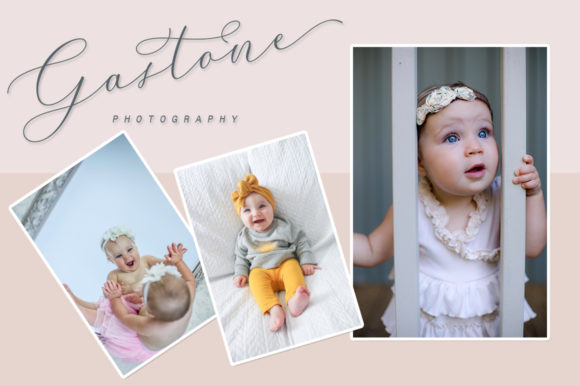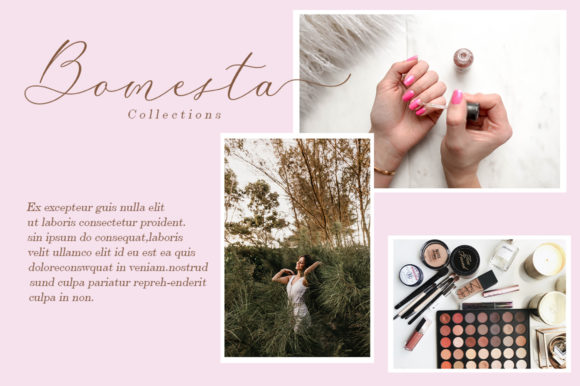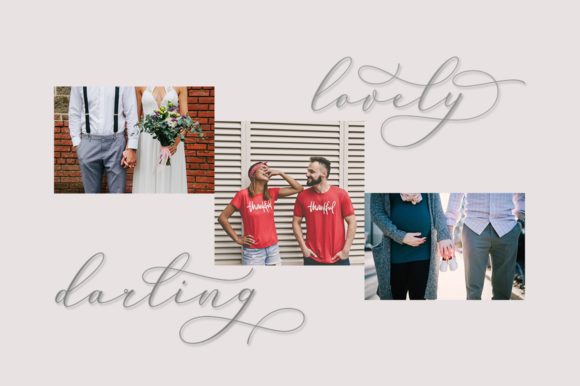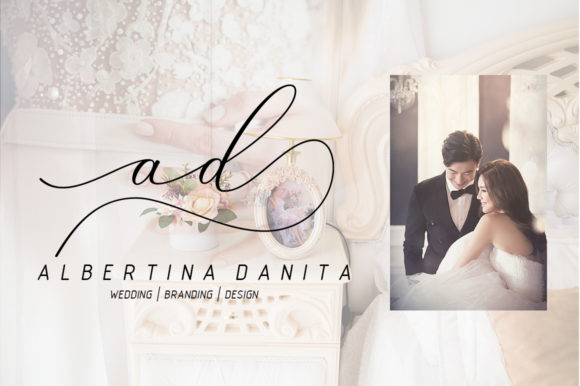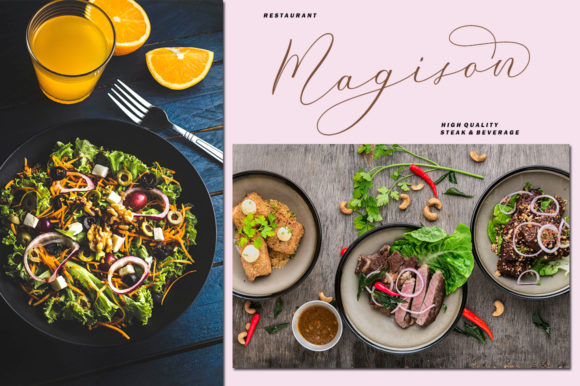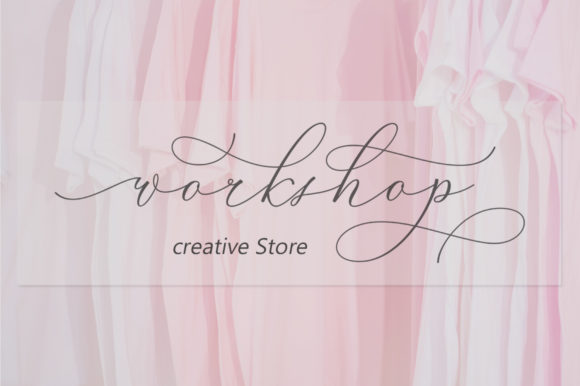
The Perfect Blend of Whimsy and Charm: Alove Hoolena Font
There’s something special about finding that perfect font that captures the essence of your creative vision. For designers, it’s like stumbling upon a hidden treasure that brings their ideas to life. And for those who have been searching for just the right touch of whimsy and charm, Alove Hoolena Font is here to delight.
Alove Hoolena Font is a beautiful, hand-lettered typeface that exudes a carefree, dynamic energy. Its dancing baseline adds a playful touch to any design, making it perfect for logos, branding, greeting cards, quotes, wedding stationery, and more. Whether you’re a seasoned designer or just starting out, Alove Hoolena Font is an invaluable addition to your toolkit, offering endless possibilities for creative expression.
Alove Hoolena Font Key Features
- Unique Characteristics: Elegant, cursive script with a touch of elegance and sophistication
Alove Hoolena Font Review
Overall, I found the Alove Hoolena Font to be a unique and visually appealing choice. ✨ Its whimsical feel and subtle curves make it perfect for designers looking to add a touch of elegance to their projects.
- Highly customizable: The Alove Hoolena Font offers a wide range of options for adjusting font sizes, line heights, and letter spacing.
- Scalable: This font can be used for a variety of projects, from small logos to large-scale posters, without losing its clarity.
- Compatible: Alove Hoolena Font is compatible with most operating systems and devices, making it easy to integrate into your workflow.
- Limited language support: The Alove Hoolena Font may not support certain languages, which could be a concern for designers working on multilingual projects.
- No bold or italic styles: While the font offers a range of options for customization, it does not include bold or italic styles, which may limit its use in certain situations.
- Some readability issues: At very small font sizes, the Alove Hoolena Font can be difficult to read, particularly for those with vision impairments.
Overall, I would give the Alove Hoolena Font 4 out of 5 stars. While it has some limitations, its unique design and high level of customization make it a valuable addition to any designer’s toolkit.
Pair Alove Hoolena with a clean and minimalist design to create a visually appealing look.
Use Alove Hoolena for headings and titles to create a clear hierarchy of information.
Alove Hoolena Font is ideal for:
- Brand logos and marketing materials.
- Magazine and newspaper headlines.
Is Alove Hoolena available in any language-specific variations?
No, Alove Hoolena is a single font family that supports a wide range of languages through its OpenType features. However, the font does not include language-specific variations or subsets. If you need to support a specific language or script, you may need to adjust the font’s settings or use a font that is specifically designed for that language.